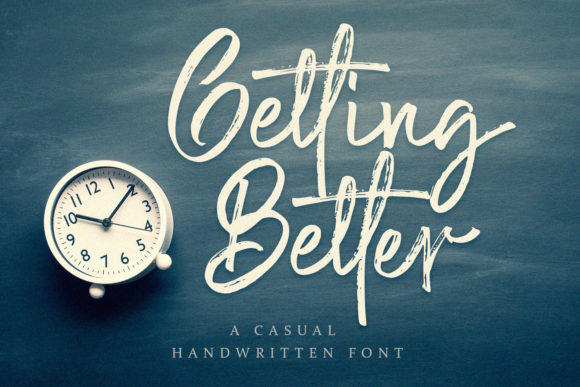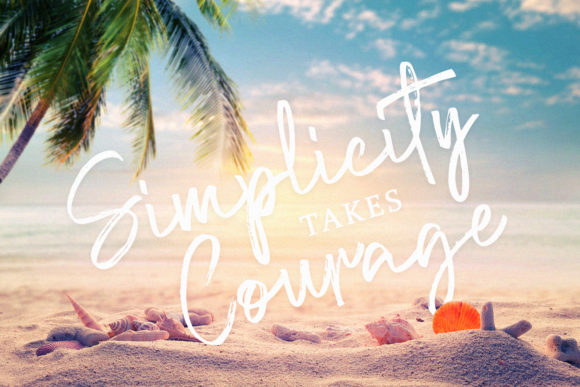
About Getting Better Font
Introducing “Getting Better” – a stunning script font that radiates a casual and relaxed vibe. With its captivating charm, this font empowers you to get creative and design outstanding visuals!
Getting Better combines elegance with a touch of informality, creating a perfect balance that adds character to your designs. The flowing letterforms and unique flourishes make this font visually striking and eye-catching.
Unleash your creativity and let Getting Better elevate your designs to new heights. Whether you’re working on branding materials, advertising campaigns, social media graphics, or any other project, this font brings a fresh and contemporary feel that captivates viewers.
Getting Better embraces a sense of versatility that allows it to be used in a wide range of design contexts. From logos and packaging to quotes, invitations, and more, this font complements different styles and aesthetics, making it a valuable asset in your creative toolkit.
Embrace the casual and relaxed feels of Getting Better and let it inspire you to create outstanding designs. Its unique charm and accessibility empower you to bring your artistic vision to life, capturing the attention and imagination of your audience.
In summary, Getting Better is a stunning script font that adds a casual and relaxed vibe to your designs. With its captivating charm and PUA encoding, it empowers you to unleash your creativity and create outstanding visuals. Embrace the versatility and unique character of Getting Better and let it elevate your designs to new levels of excellence.